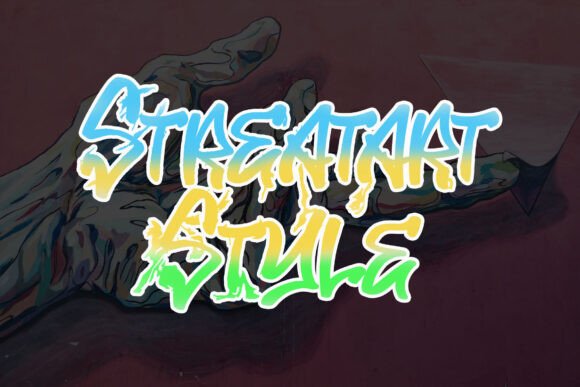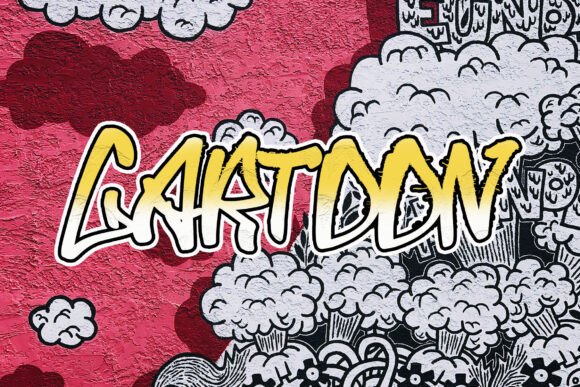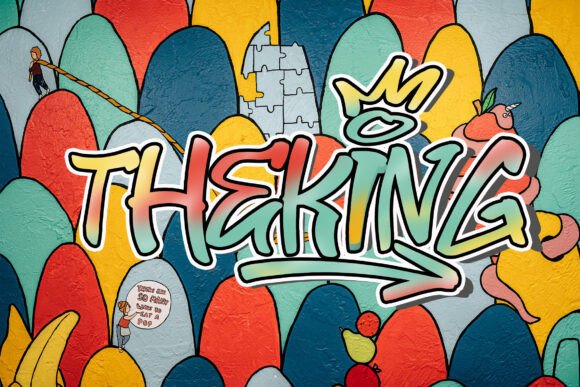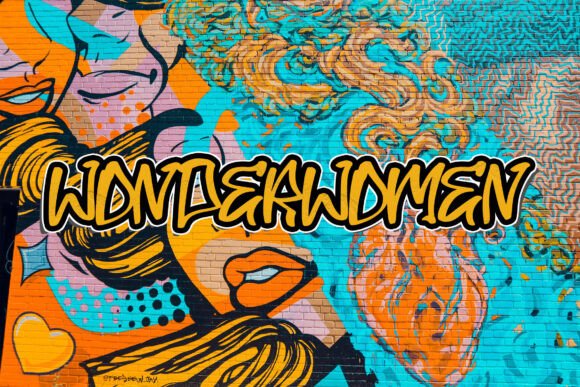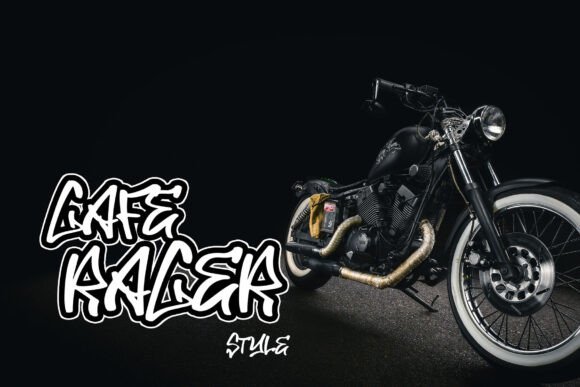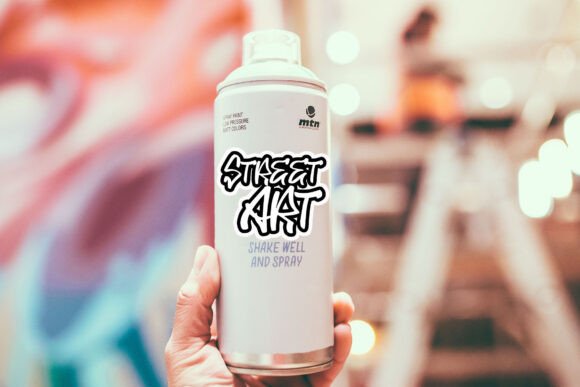
Introducing FABERK: The Ultimate Bold Graffiti Font for Urban Designs
In the world of design, fonts play a crucial role in conveying the message and aesthetic of a project. For those looking to add an urban, edgy feel to their creations, FABERK is the perfect choice. This bold graffiti font boasts a dynamic hand brush style that brings a raw and energetic vibe to any design. In this article, we’ll dive into the unique features of FABERK and explore its endless possibilities for street art-inspired logos, branding, apparel, and more.
The Unique Character of FABERK
FABERK’s distinctive character shapes are what set it apart from other fonts. Its bold, hand-brushed letters are reminiscent of street art, with a dynamic energy that’s impossible to ignore. Each letter is carefully crafted to bring a sense of movement and spontaneity to your designs, making it perfect for projects that require a bold statement. Whether you’re designing a logo, creating a brand identity, or crafting a compelling advertisement, FABERK’s unique character is sure to make your project stand out.
Perfect for Street Art-Inspired Designs
FABERK is specifically designed for street art-inspired designs, making it an ideal choice for projects that require an urban, edgy feel. Its bold, graffiti-style letters are perfect for:
- Streetwear logos: Add a bold, eye-catching touch to your streetwear brand with FABERK’s dynamic letters.
- Branding: Create a memorable brand identity with FABERK’s unique character shapes.
- Apparel: Design striking t-shirts, hoodies, and more with FABERK’s bold, hand-brushed letters.
- Posters and flyers: Make a statement with FABERK’s energetic vibe and bold typography.
Enhance Your Visual Impact with FABERK
FABERK is more than just a font – it’s a design statement. Its distinctive and creative lettering is designed to enhance the visual impact of your projects, making them impossible to ignore. With FABERK, you can:
- Add an urban touch: Bring a raw, edgy feel to your designs with FABERK’s bold graffiti style.
- Create a lasting impression: FABERK’s unique character shapes are sure to leave a lasting impression on your audience.
- Stand out from the crowd: With FABERK, you can create designs that are truly one-of-a-kind.
Tips for Using FABERK Effectively
To get the most out of FABERK, here are some tips for using it effectively:
- Experiment with colors: FABERK’s bold letters look great in bright, bold colors. Experiment with different color schemes to find the perfect fit for your design.
- Play with textures: Add an extra layer of depth to your design with textures and patterns. FABERK’s hand-brushed letters look great with rough, grunge textures.
- Mix and match: Combine FABERK with other fonts and design elements to create a unique look that’s all your own.
FABERK is a game-changing font that’s perfect for designers and crafters looking to add an urban, edgy feel to their projects. With its bold graffiti style, dynamic hand brush letters, and unique character shapes, FABERK is the ultimate choice for street art-inspired designs. Whether you’re creating a logo, branding a product, or designing apparel, FABERK is sure to enhance the visual impact of your project and leave a lasting impression on your audience.